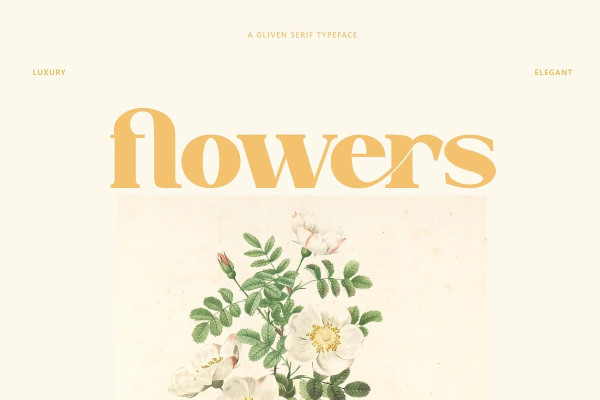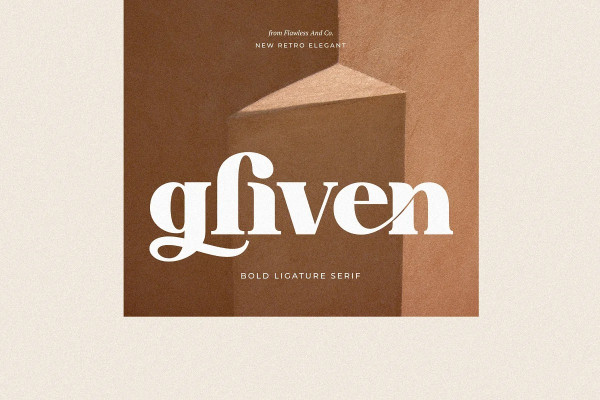
Gliven Font
Gliven Font – Retro Serif Font, our latest creation, modern serif with various alternates and ligatures, multilingual support, an updated blend of bohemian style, suitable for branding, business, logos, magazines, and others